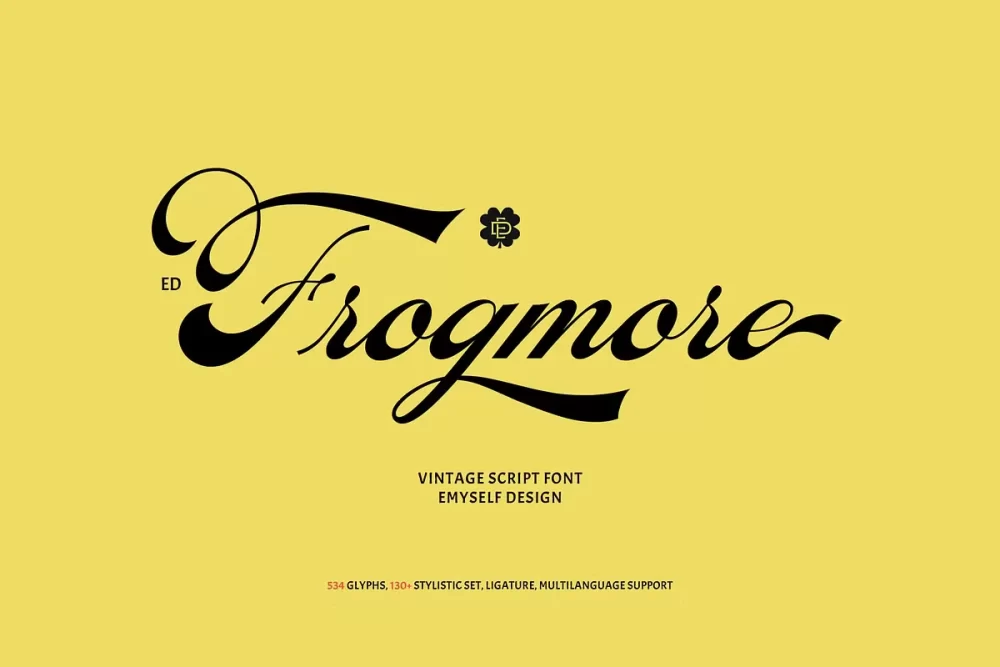
ED Frogmore is a script font with a classic vintage style. The classic style of this font is suitable for retro/vintage-themed designs but can also be used for designs with other styles. This font is equipped with 130+ stylistic sets, Ligatures, and multi-language support.
This font is perfect for your creative projects such as Logotype, printed quotes, invitations, cards, product packaging, headers, Letterhead, Apparel, Web design, Magazine, Book, etc.
FEATURES:
- Total Glyphs: 534
- Uppercase
- Lowercase
- Punctuation and Marks
- Symbols
- 130+ stylistic set
- Ligatures